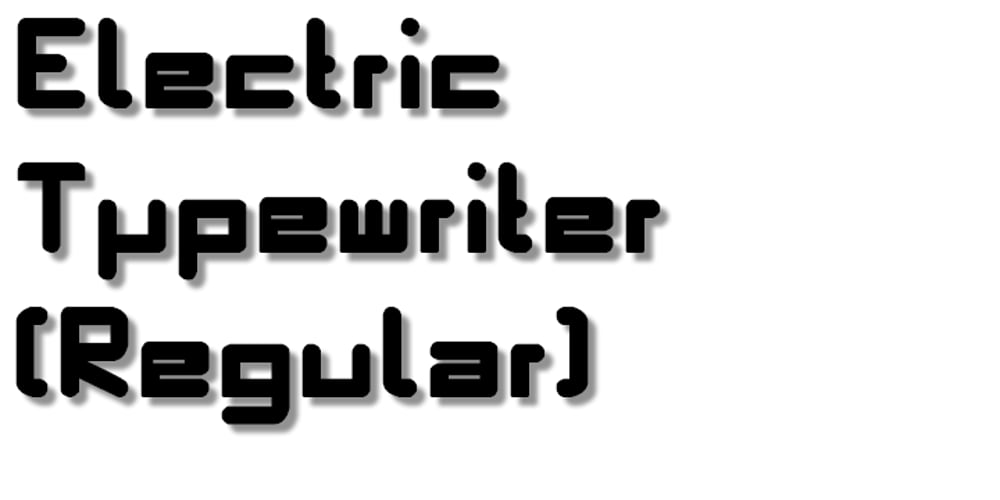
Electric Typewriter Font Family was designed by Matthias Luh and published by Matthias Luh. Electric Typewriter contains 1 styles and family package options. A bold, rounded font. I’m afraid it only contains the most common characters because of its thickness. Anyway, it’s good for most uses.